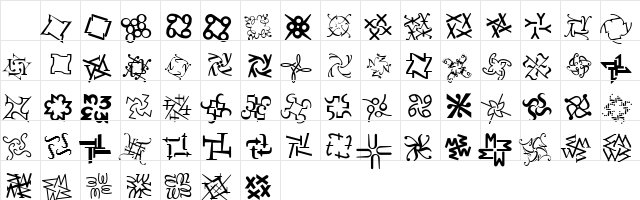
Hypnopaedia is a composed and adaptable typeface that performs quietly and consistently across a wide range of design contexts.
Who designed the Hypnopaedia Medium font?
This font was published by C) Emigre Graphics, Designed by Zuzana Licko. Check the technical specs section for copyright and designer details.